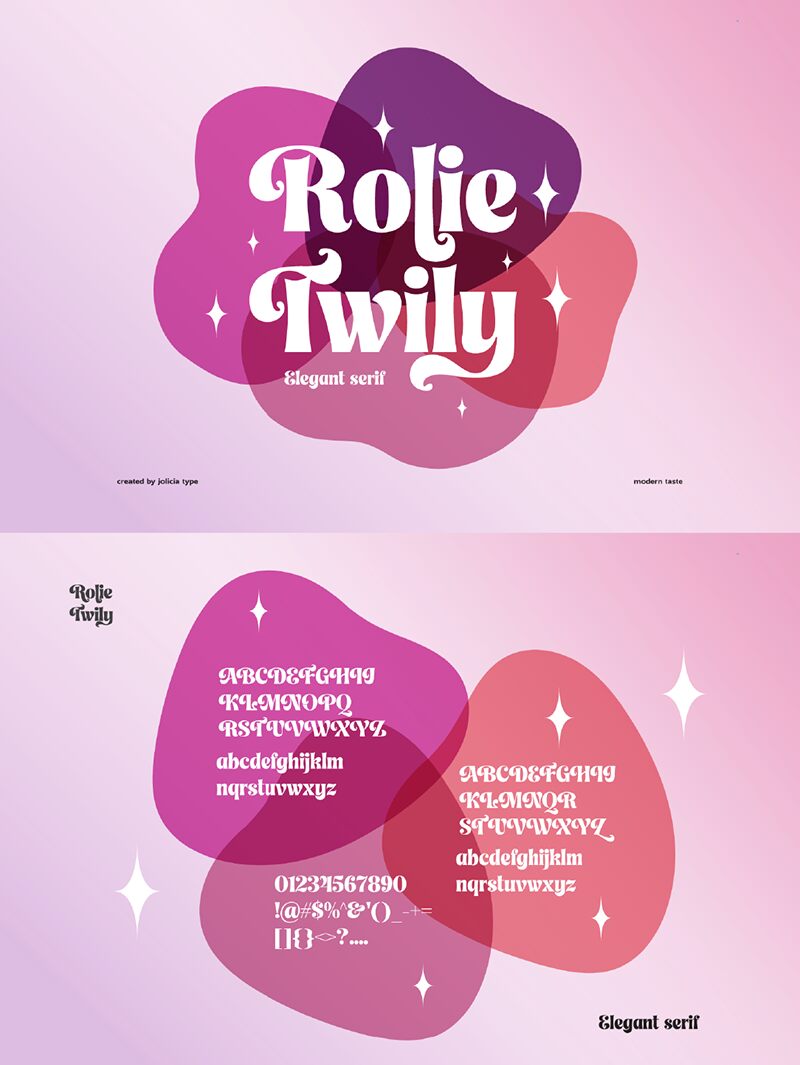
RolieTwily-Regular
Rolie Twily font by Jolicia Type Foundry is a retro display font with expressive decorative characteristics. Whimsical, ornate, and elegant – Rolie Twily is a unique typeface that combines vintage-inspired style with modern aesthetics. Its ornamental nature gives it an impressive presence that can easily grab the attention of the audience.
Use this free display font for poster titles, book covers, greeting cards, product packages, social media posts, advertisements, signage designs, and more. Explore its beauty in magazine spreads and typography art where you can experiment with various font sizes or colors for styling contrasts.
Rolie Twily by Jolicia Type